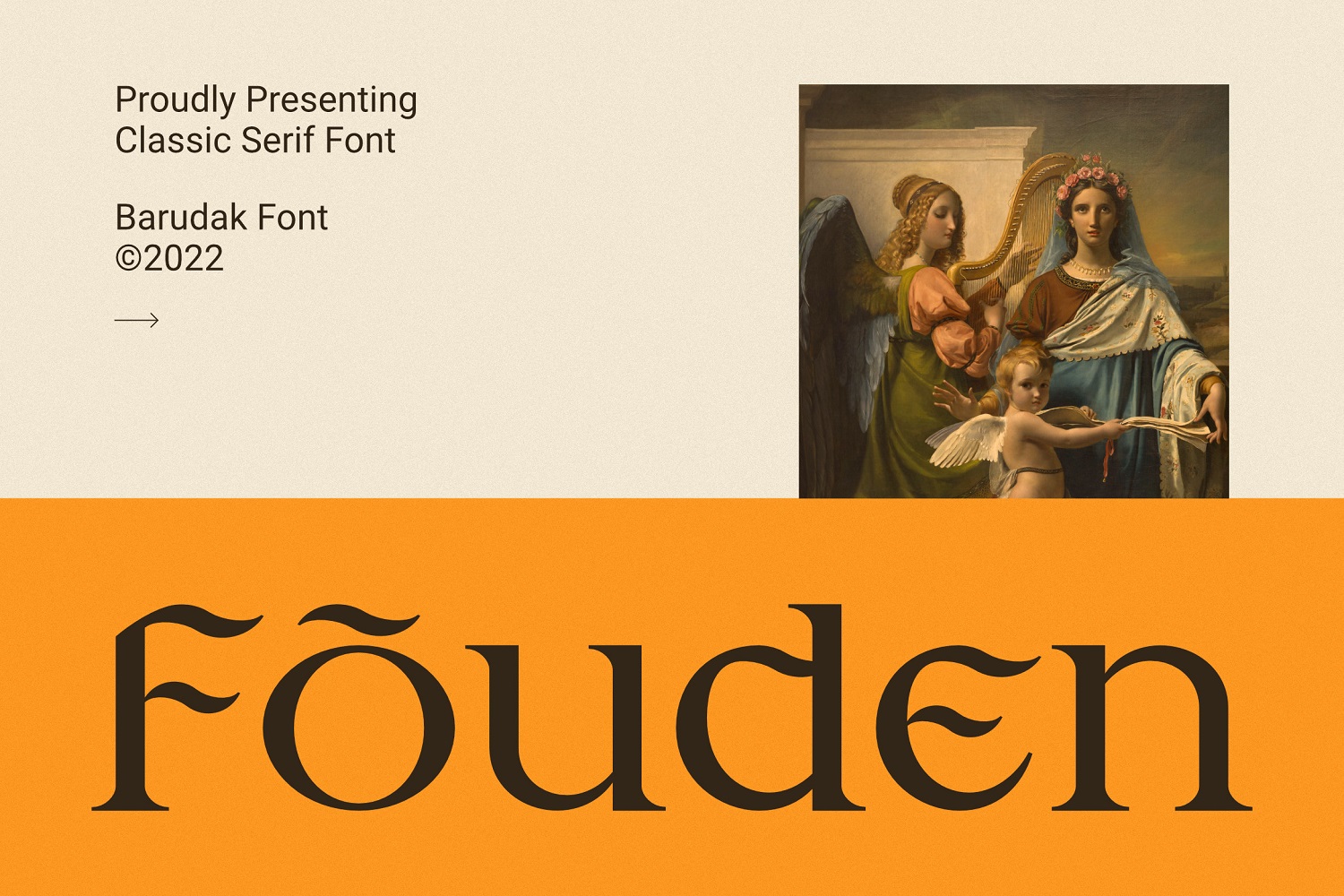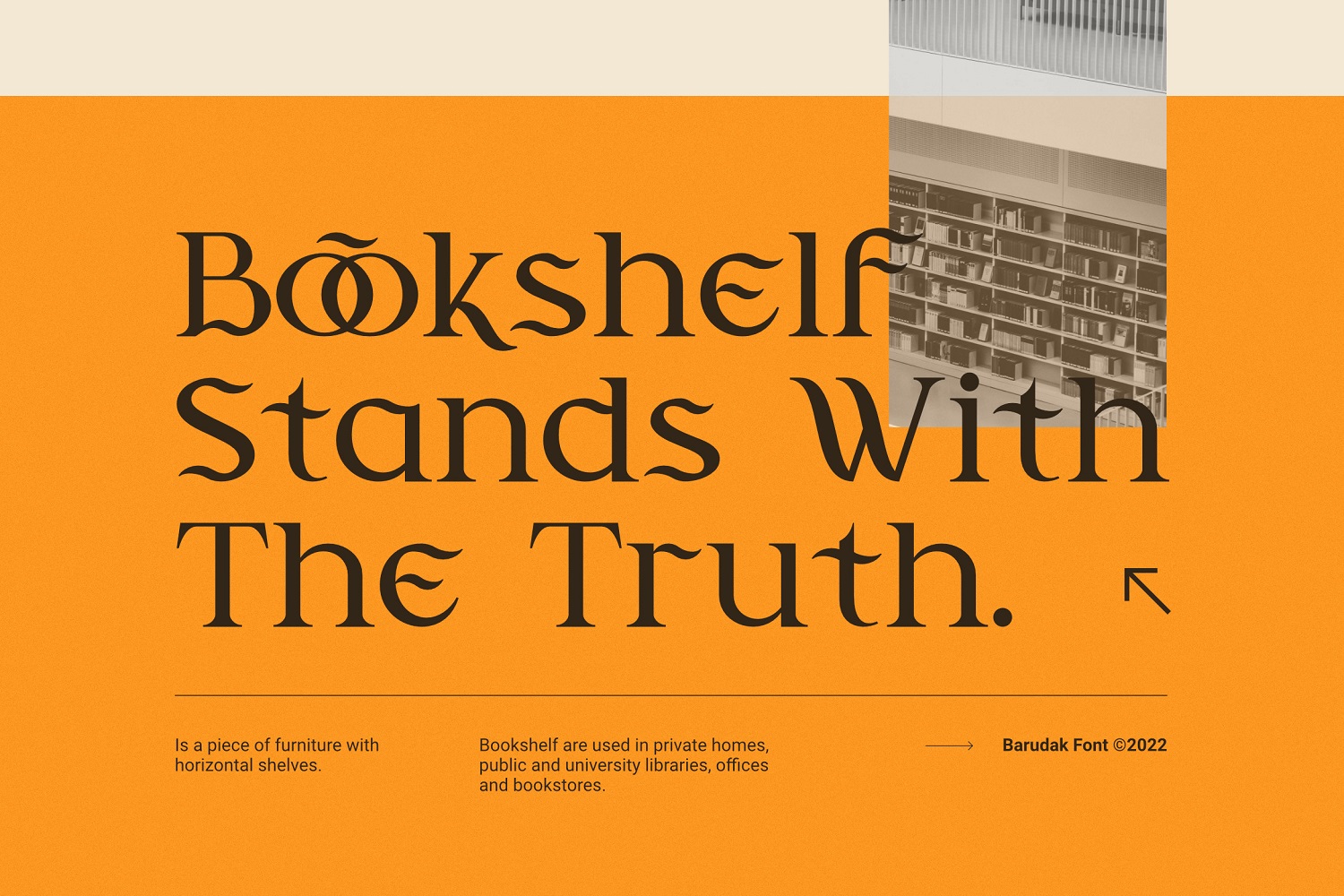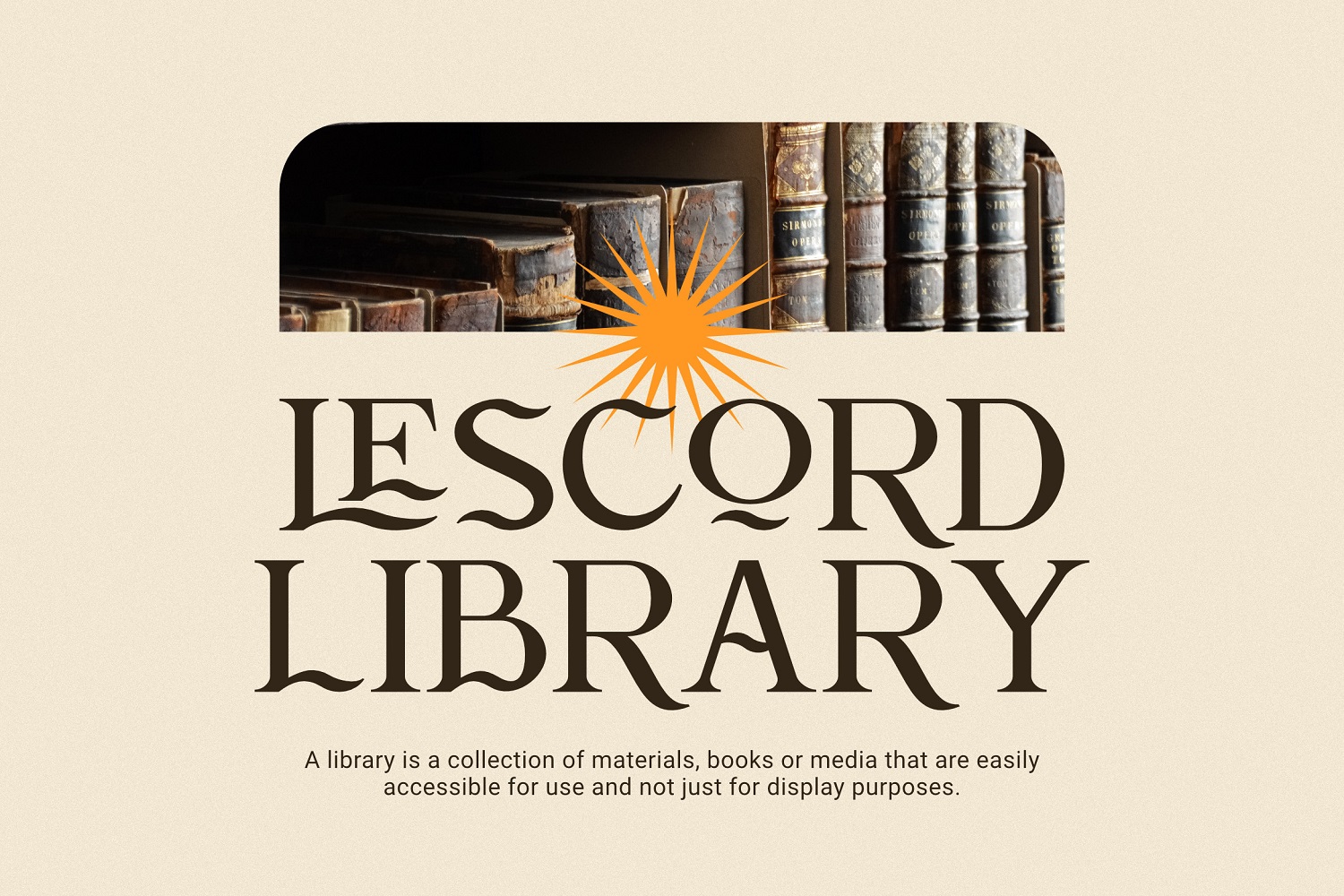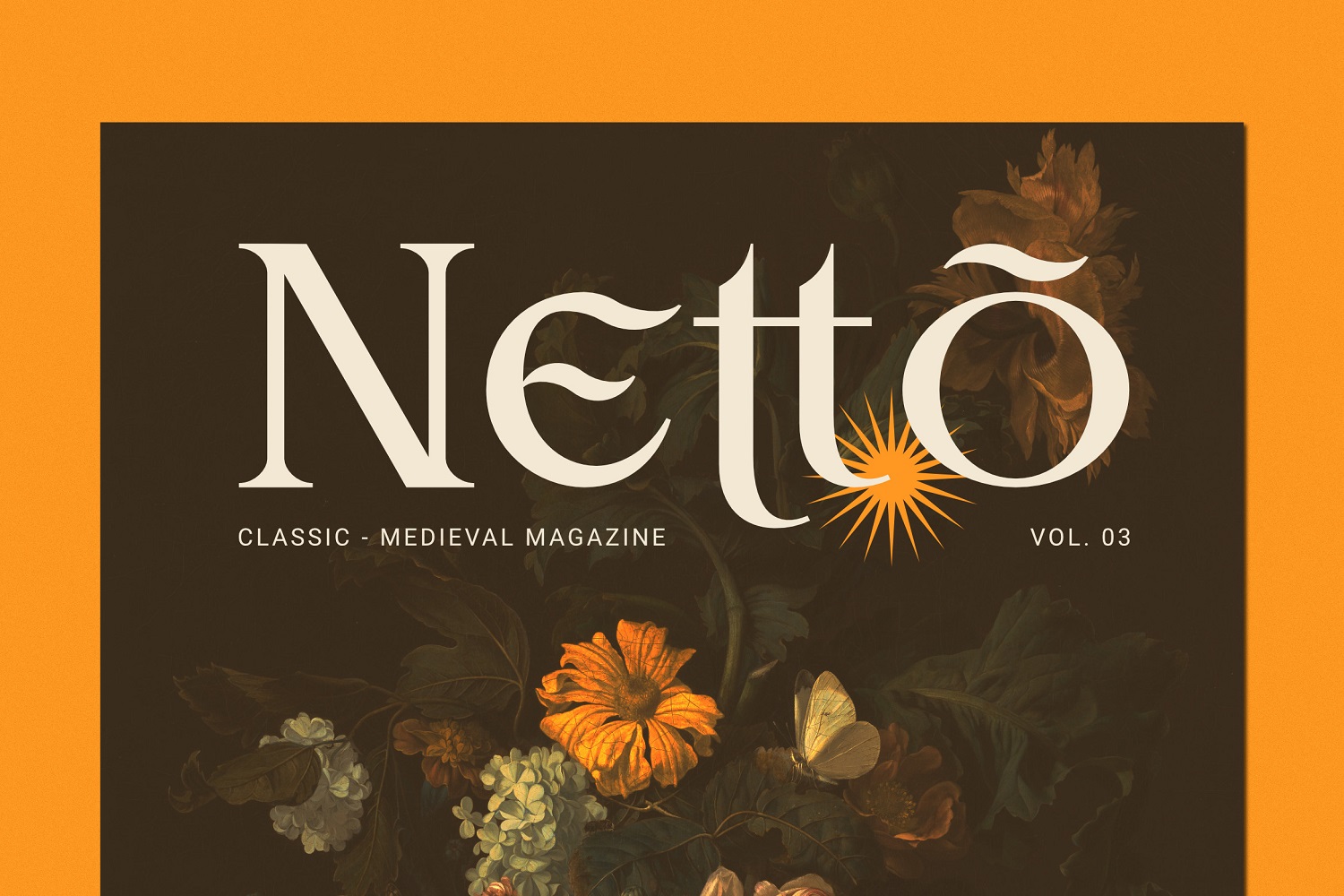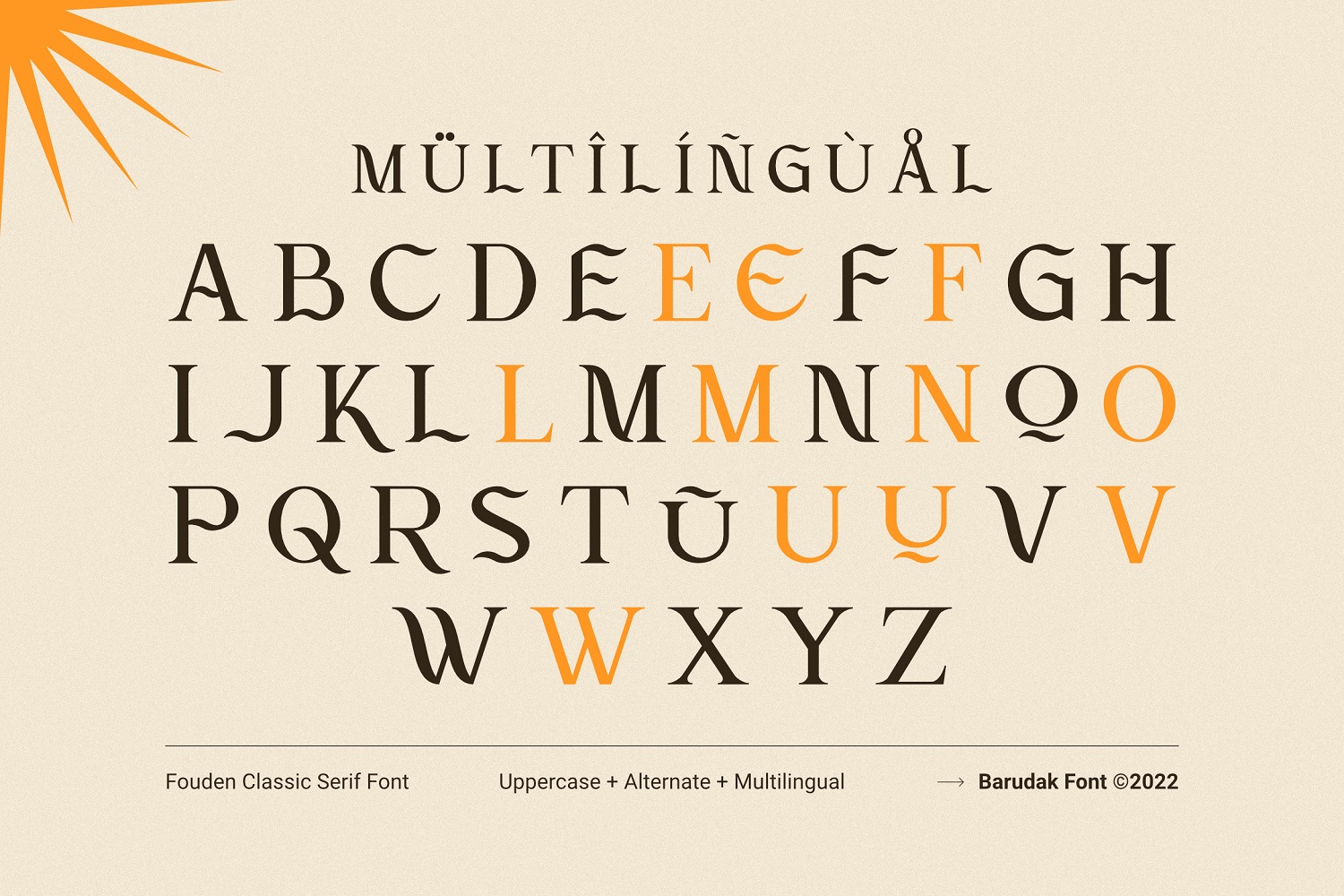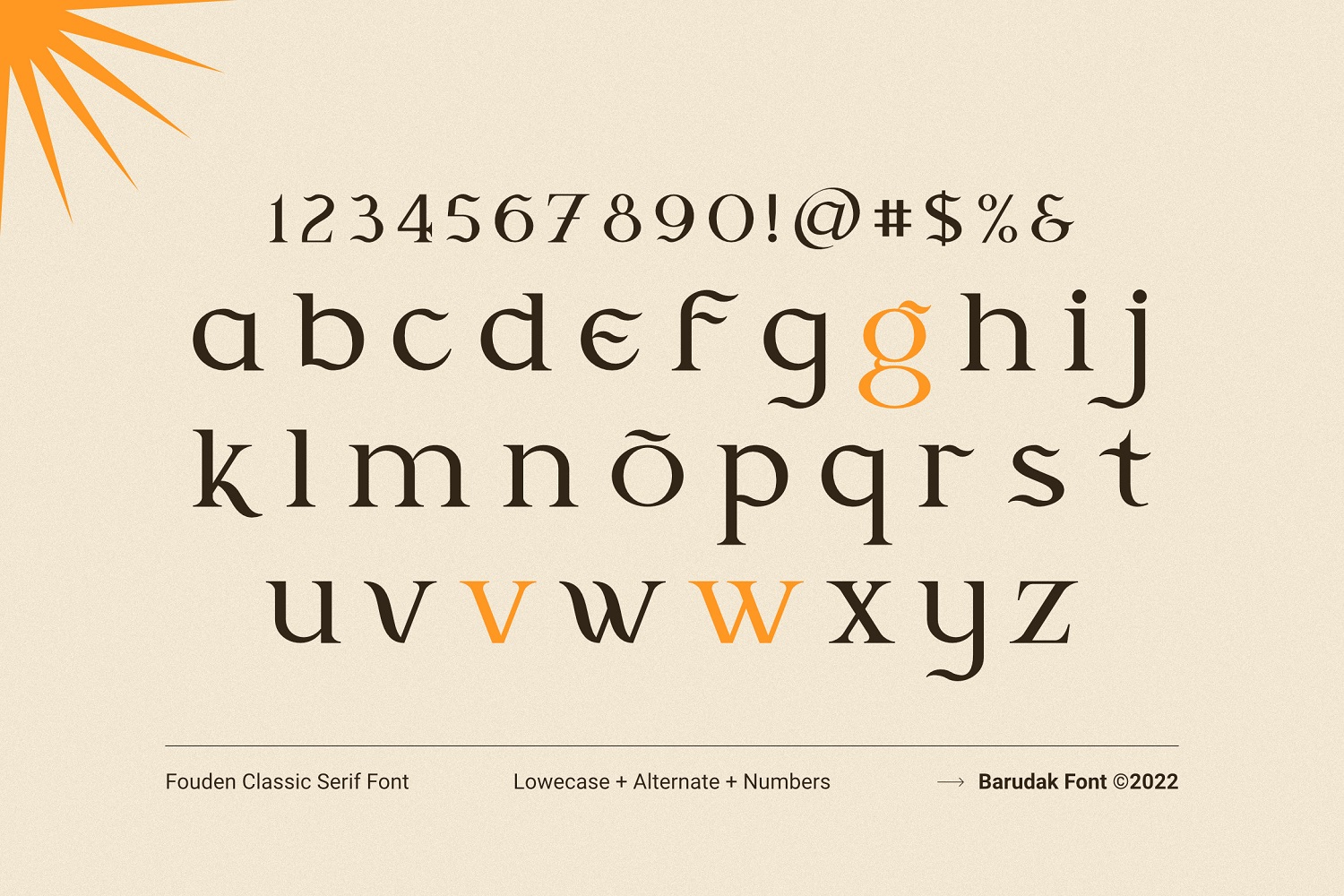
Fouden
Fouden is a refined classic serif font that combines timeless elegance with a touch of modern sophistication. Its balanced proportions, distinctive curves, and artistic details make it perfect for high-end branding, editorial design, packaging, and luxury-inspired projects. Whether used for headlines, logos, or refined body text, Fouden delivers a strong visual impact while maintaining graceful readability. A versatile choice for designers seeking to add a sense of tradition and sophistication to their work.